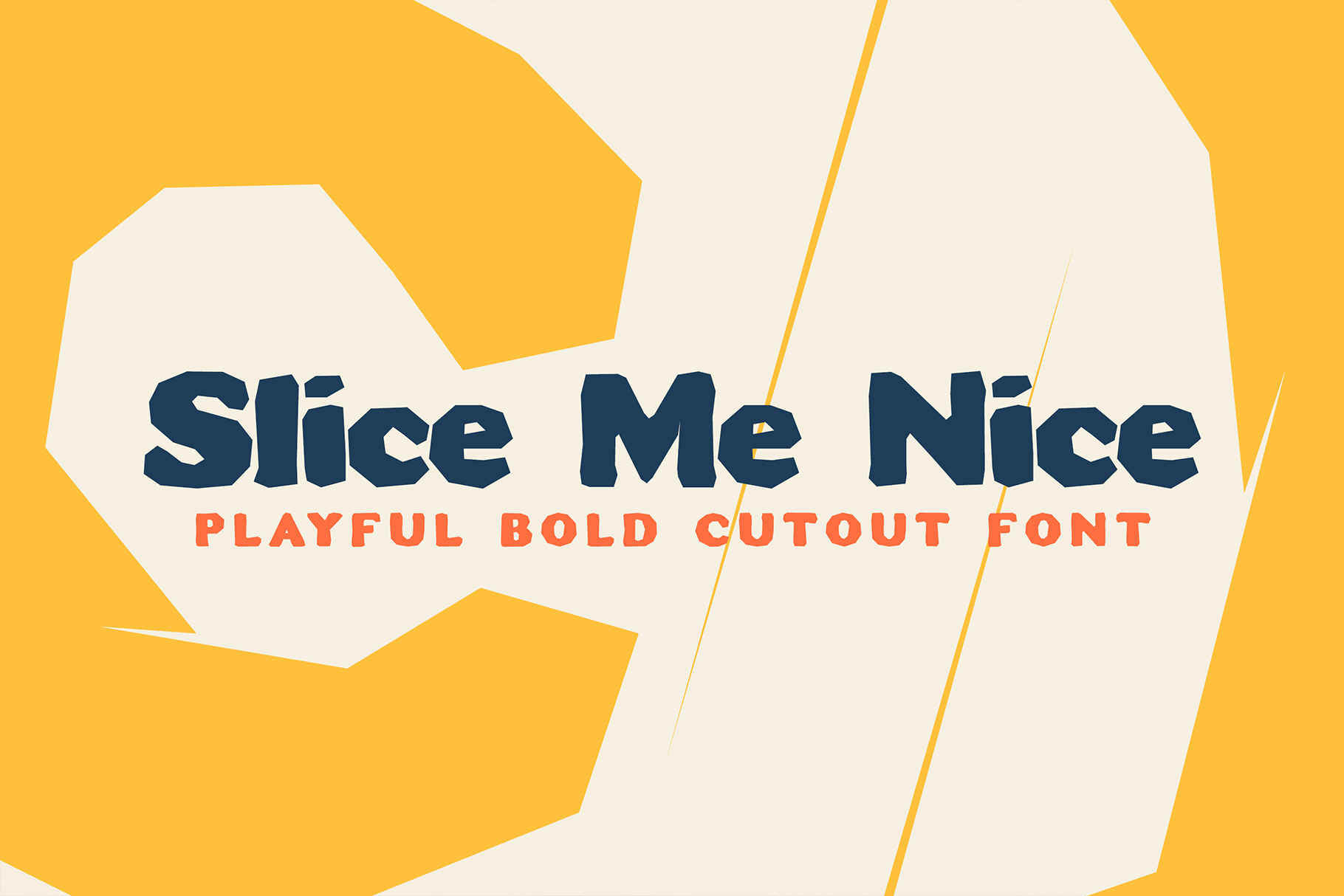
Slice Me Nice Font
Playful childish, bold, chunky cut out uppercase and lowercase sans-serif font great for headlines, quotes, banners, bilboards, logo designs, posters, flyers, craft, art projects, advertising etc.